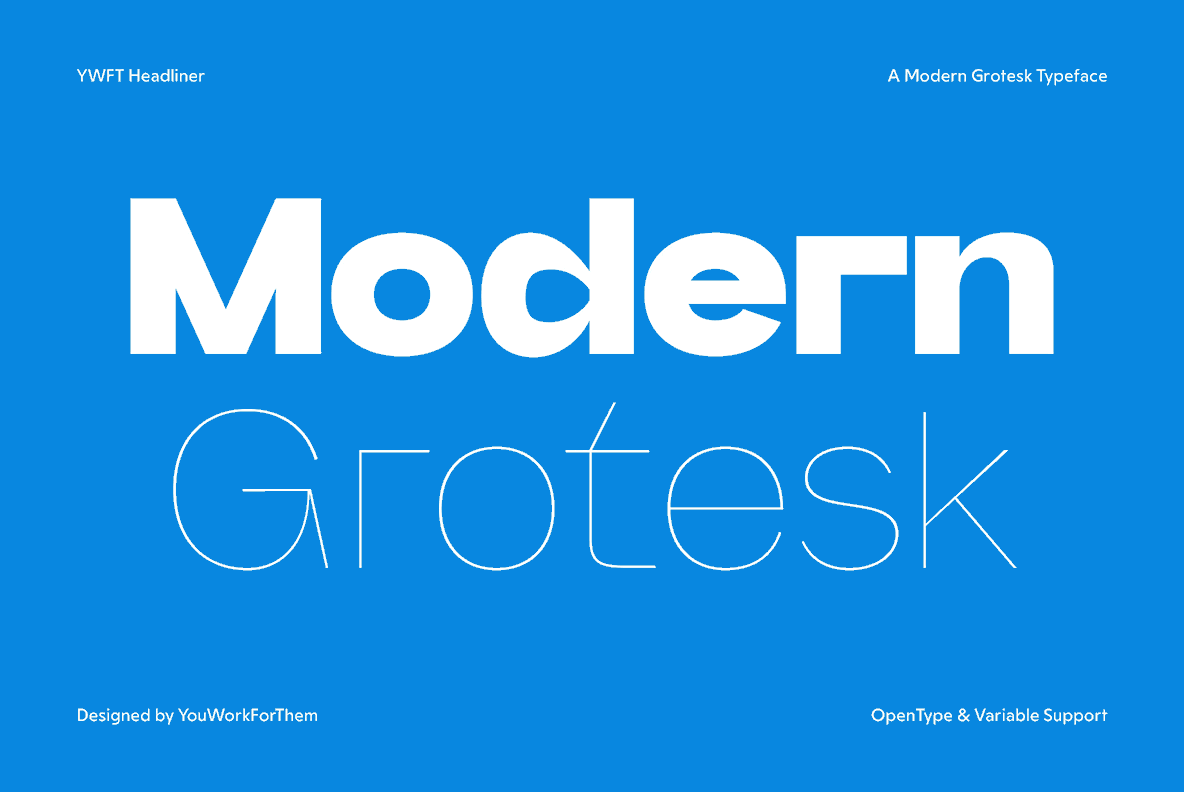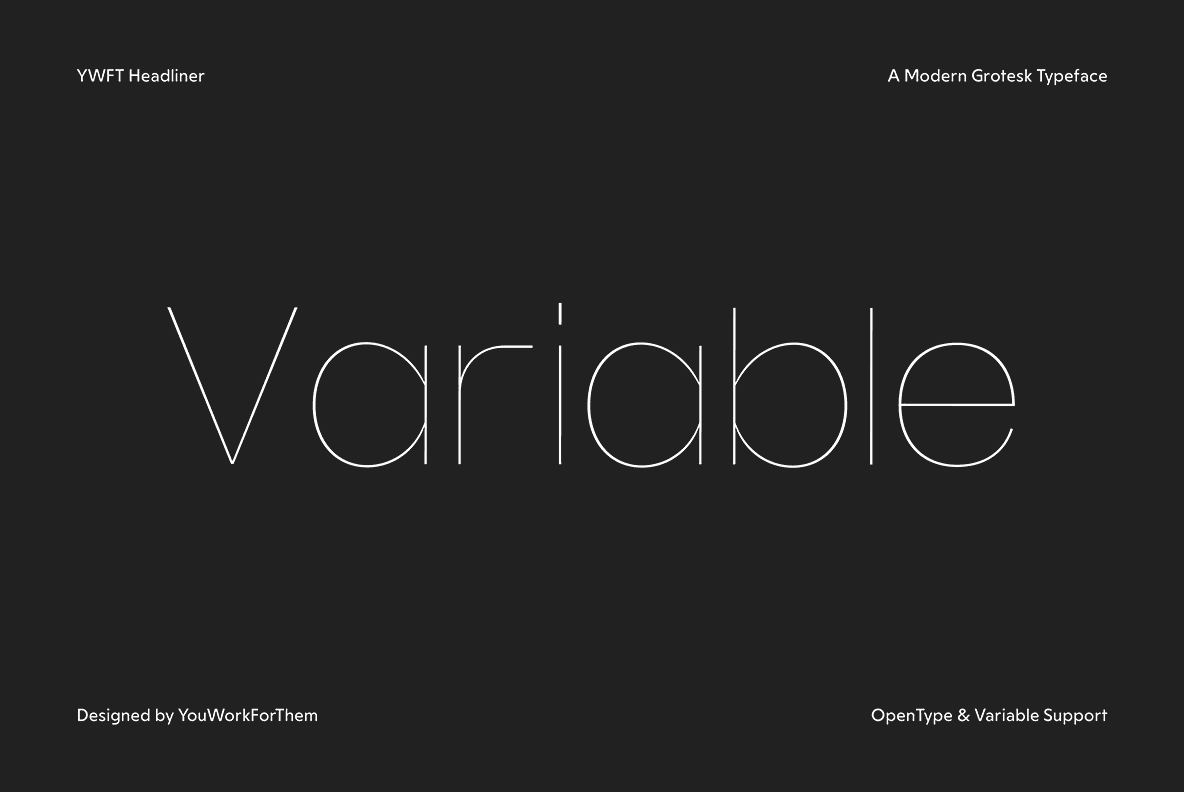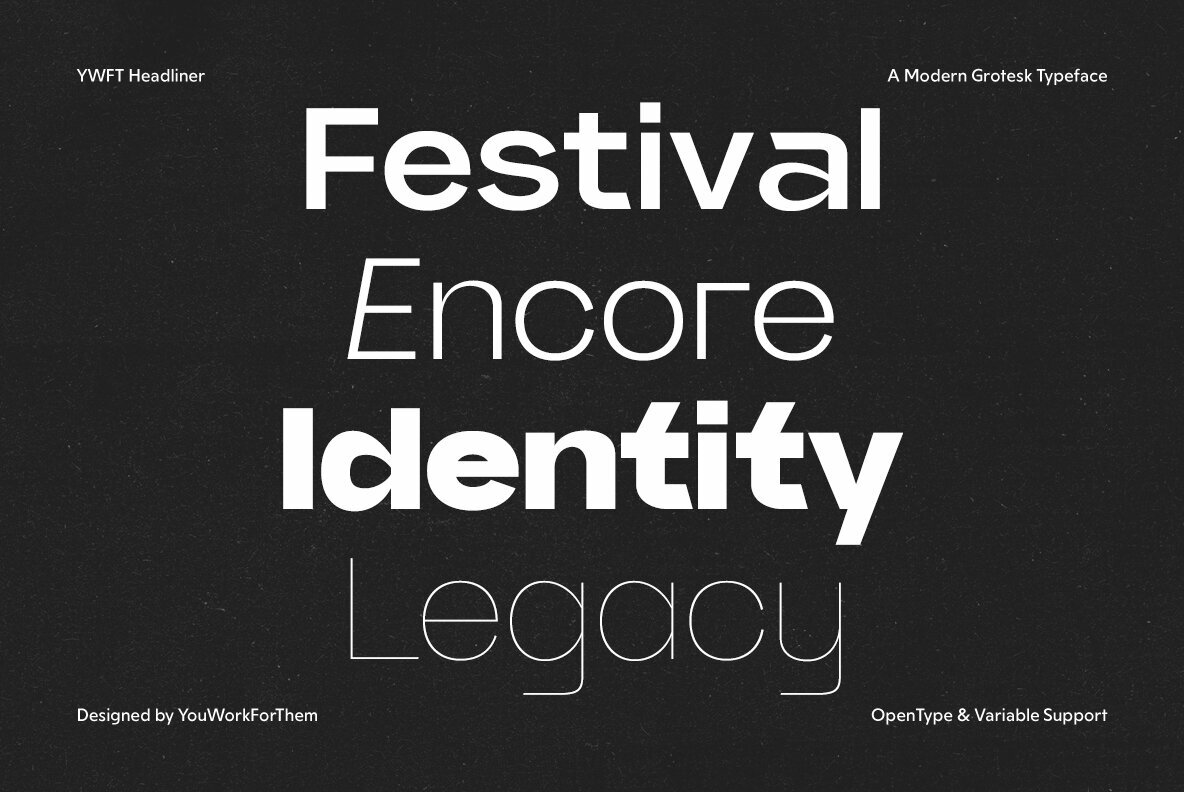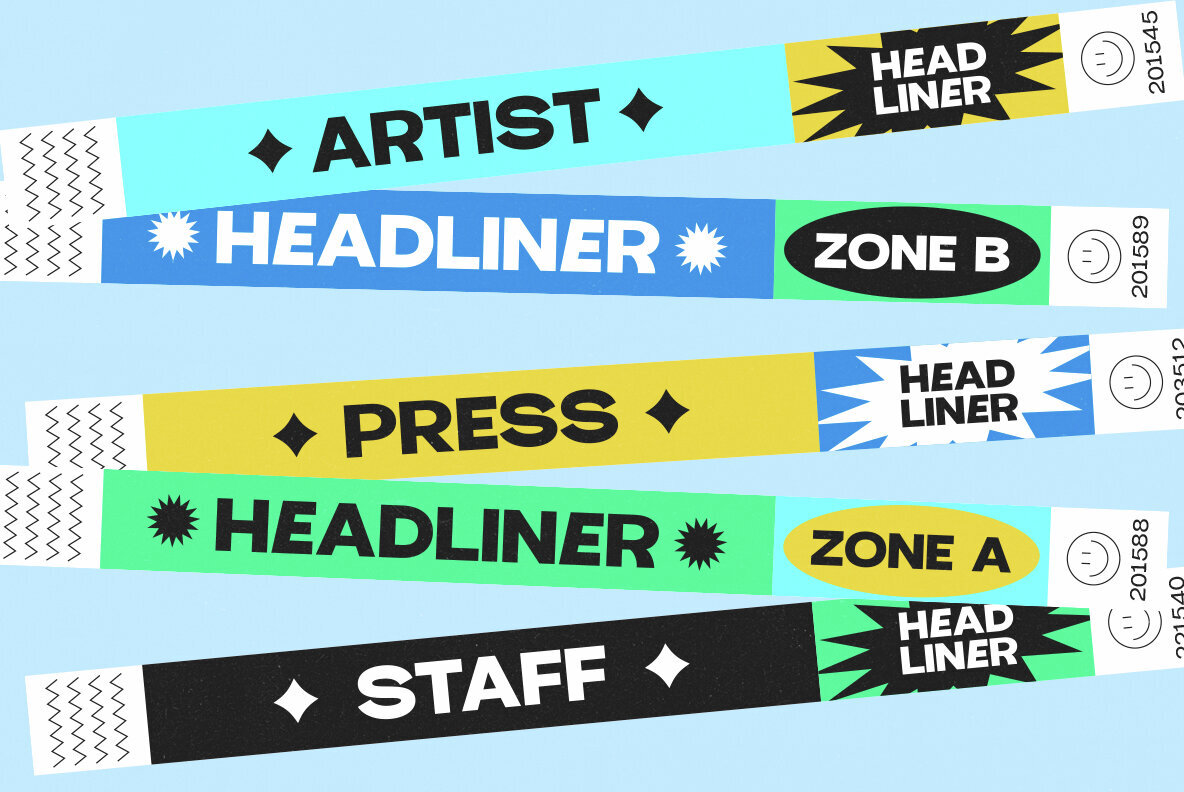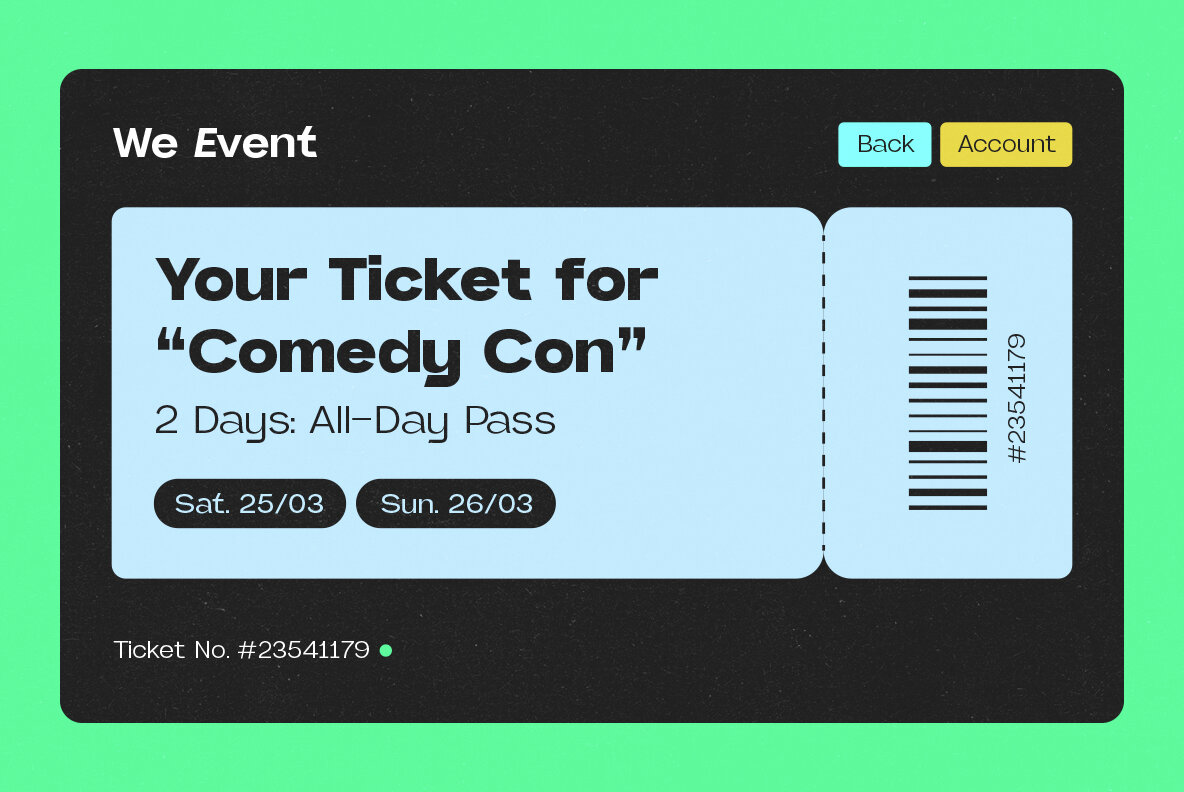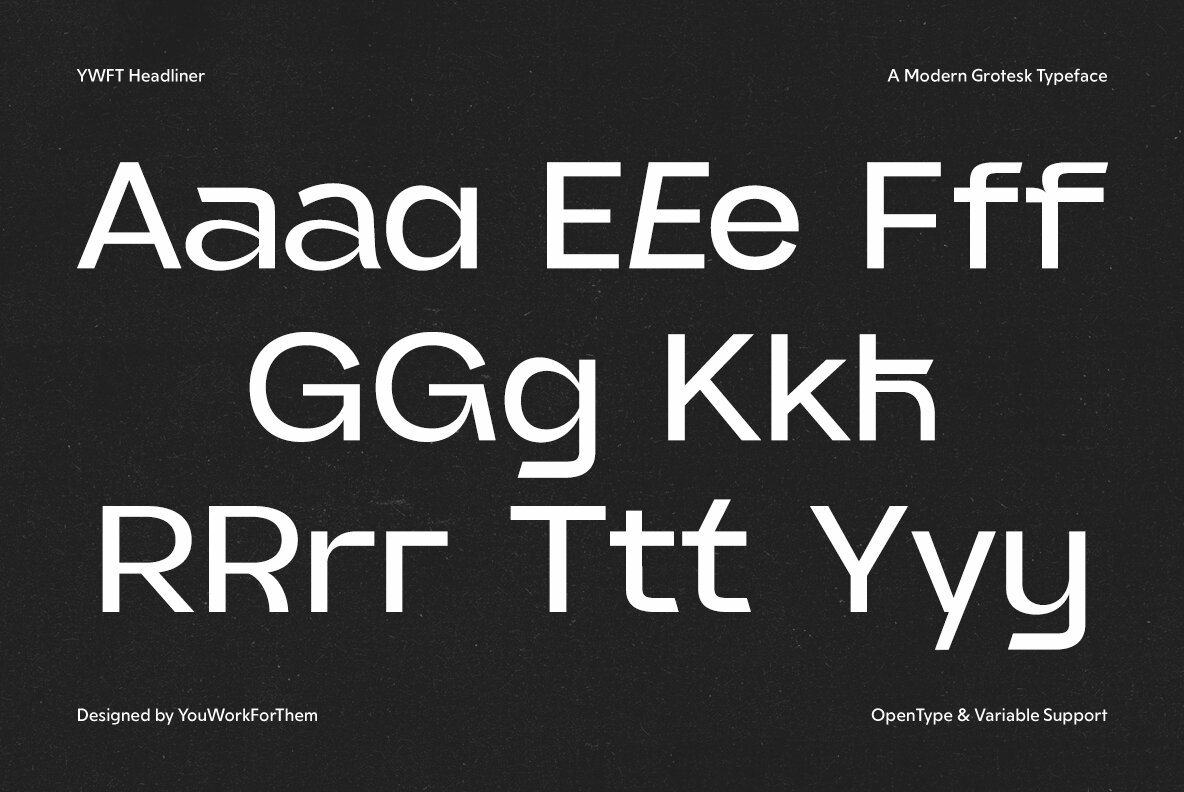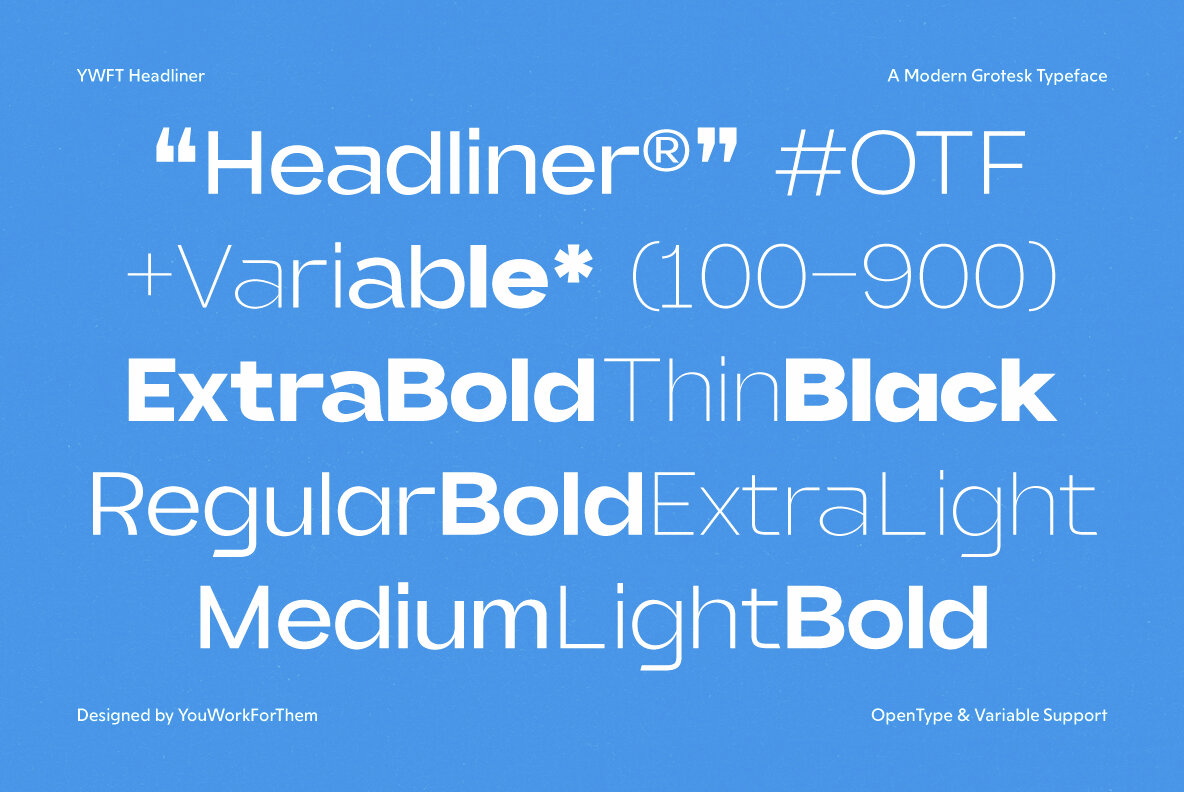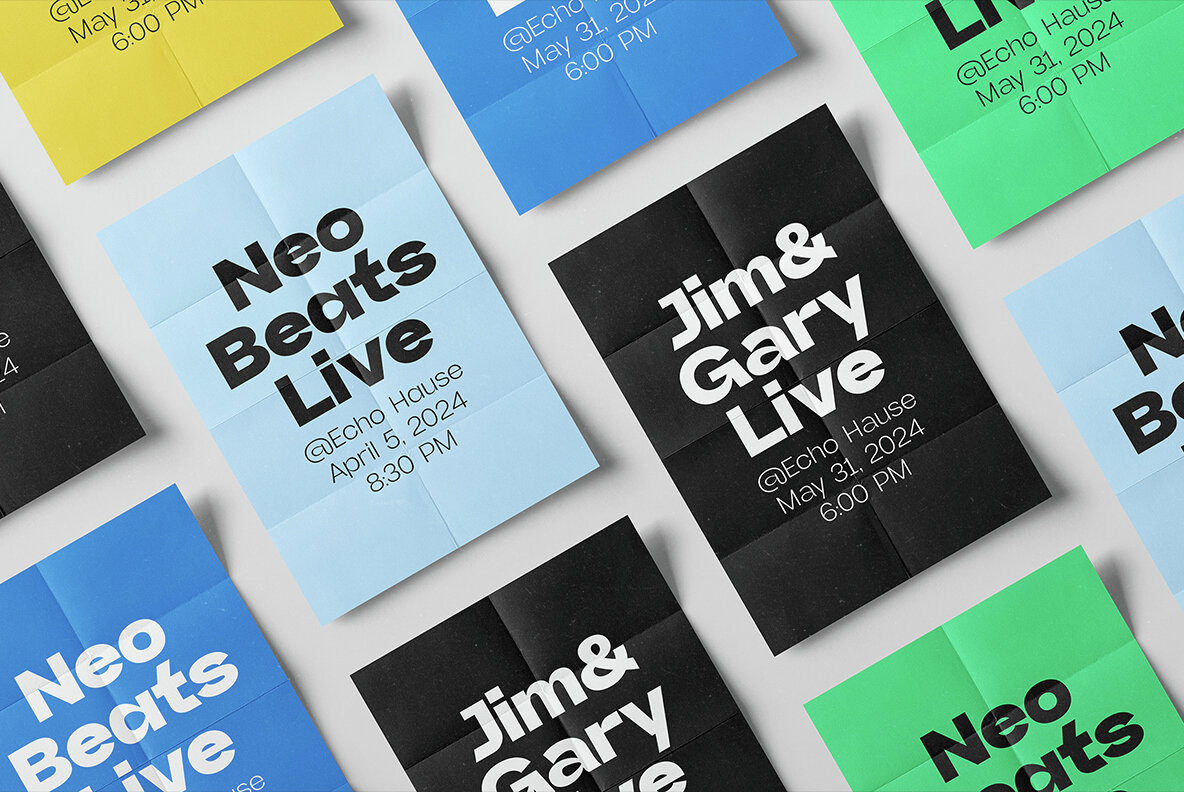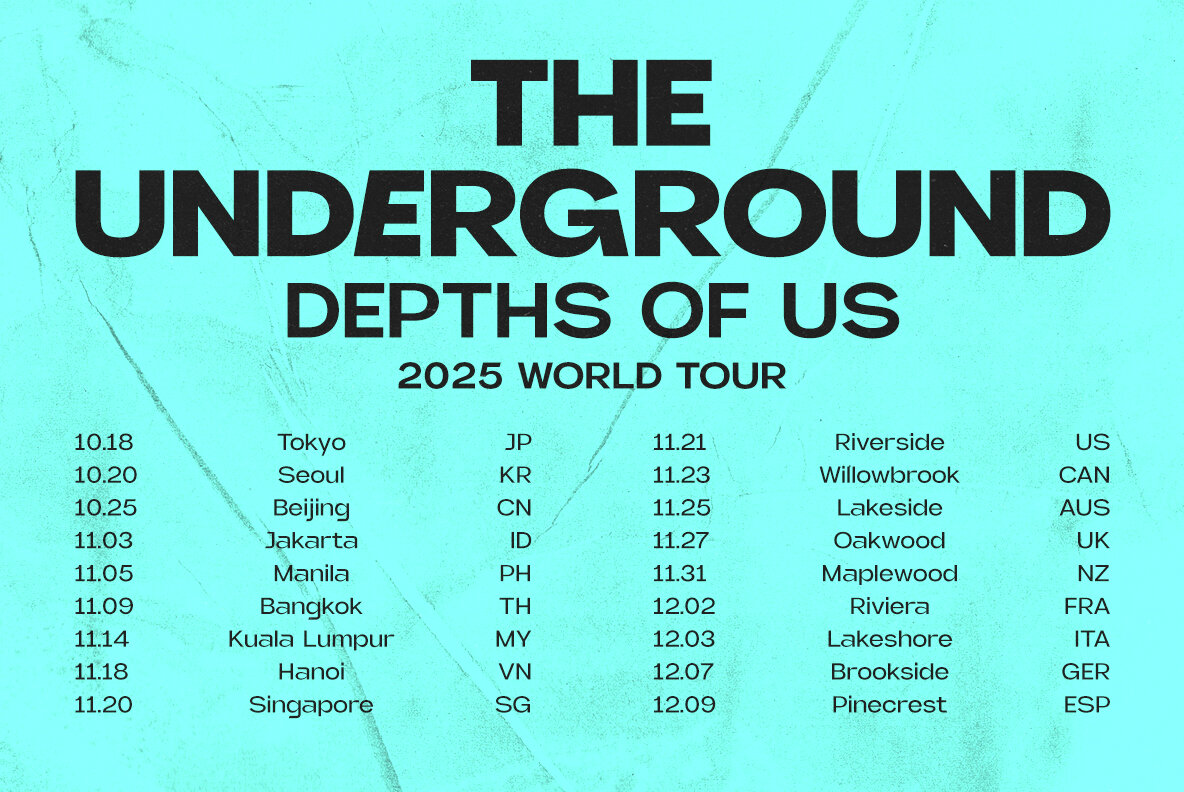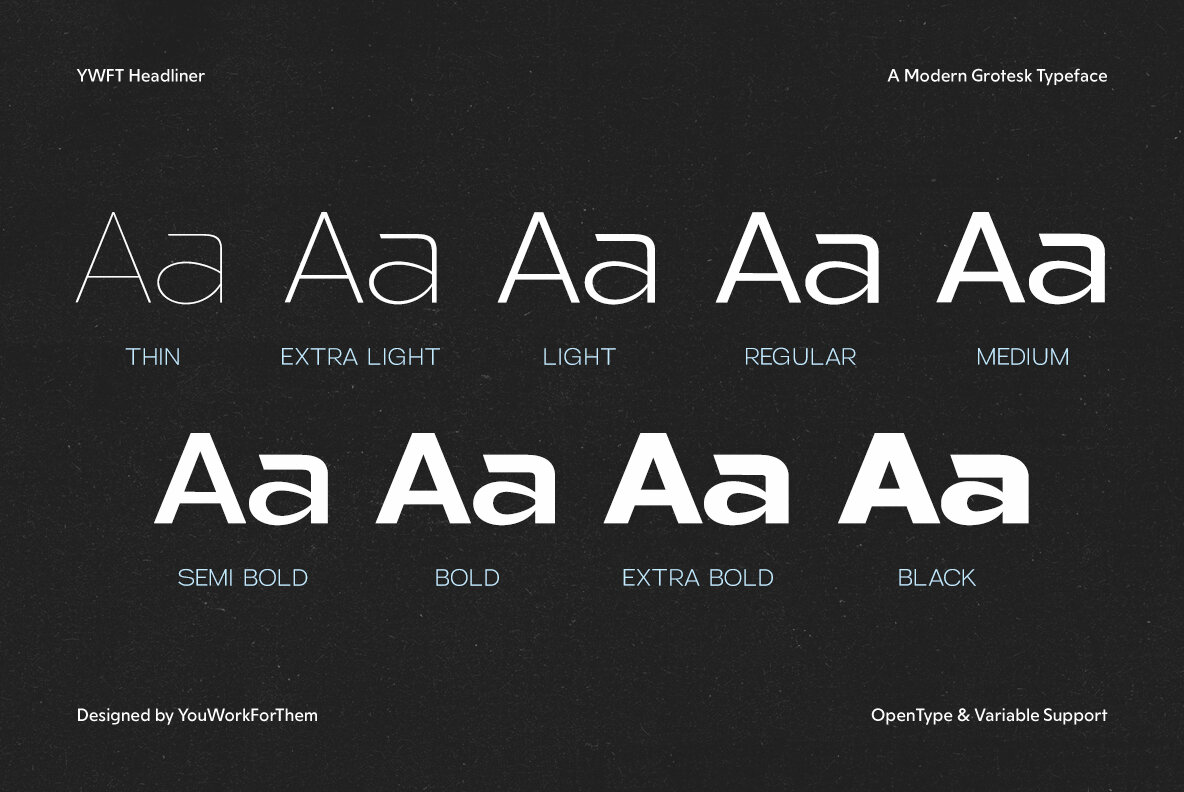
YWFT Headliner Font
YouWorkForThem is proud to unveil YWFT Headliner, our groundbreaking entry into the grotesque sans-serif genre. This font is not just a new addition to our exclusive collection; it's a bold reimagining of event typography for the digital age. With YWFT Headliner, we've taken the essence of classic paper poster designs and transformed them into a versatile, modern font that meets the demands of today's diverse media landscape. YWFT Headliner stands as a testament to innovation, available exclusively on the YouWorkForThem platform. This font promises not just exceptional design but also unparalleled ease of use across all media and marketing applications. With personal and commercial licensing that defies the industry norm, we offer the best licensing plan out there: pay once, use forever. With over 570 glyphs and support for a wide array of languages including Greek and Vietnamese, YWFT Headliner is a workhorse disguised as a show pony. It features an extensive range of OpenType capabilities, including alternates, style sets, and creative ligatures, making it perfect for designers who love to experiment and innovate within their typography. From the thinnest whisper of a line to the boldest declaration, YWFT Headliner's nine weights offer a full spectrum of expression. The addition of a variable option covers all the bases, providing seamless transitions between weights for web design and beyond. This font is crafted not only for headlines that capture the eye but also for body content that holds the attention. Inspired by the heritage of event typography yet fully attuned to the needs of the digital realm, YWFT Headliner is designed to excel in a variety of applications. Whether it's for branding, advertising, user interfaces, or digital content, Headliner ensures that your projects stand out with style and substance. Additional products used for slideshow images:Introducing YWFT Headliner: Revolutionizing Grotesque Sans-Serif Typography
Exclusive Typography Innovation
A Wealth of Creative Possibilities
Designed for Flexibility
A Font for Today's Digital World